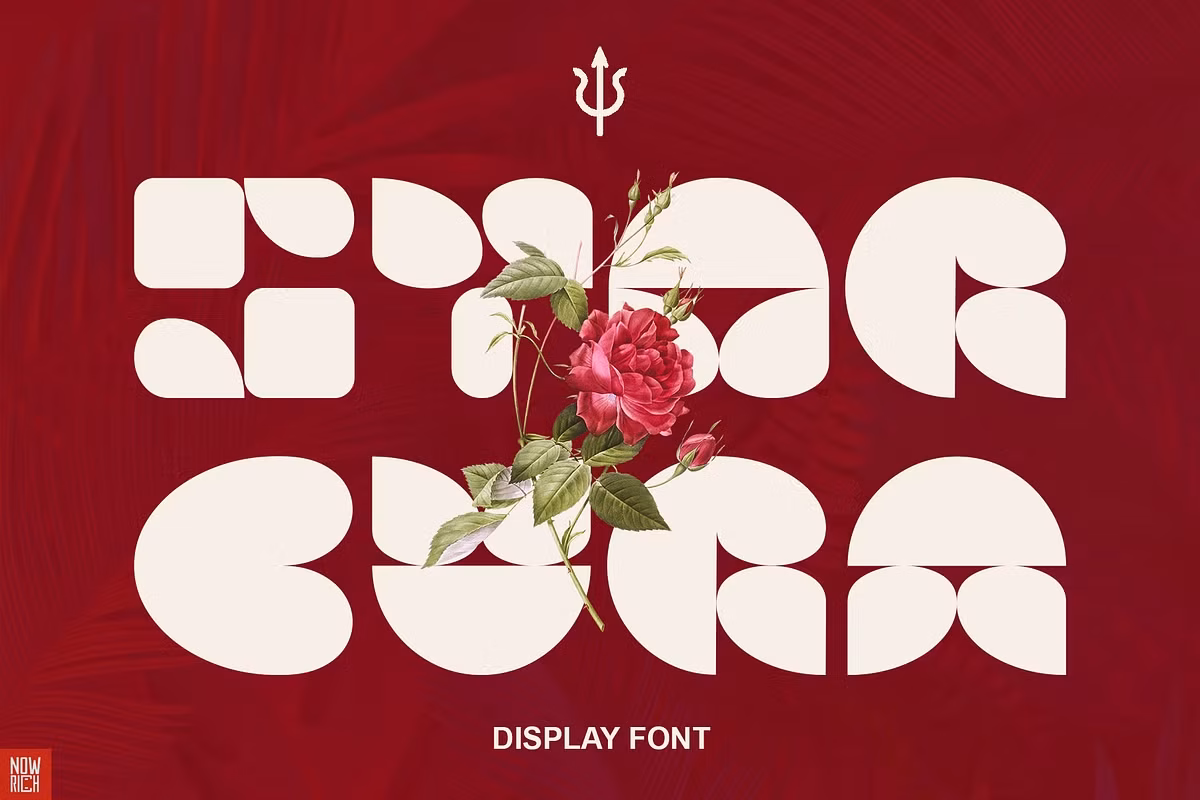
Starburn Display Font Typeface Free Download is a bold and modern display font designed with unique, stylish letterforms that make a statement. With its clean lines and creative design, Starburn is perfect for use in branding, posters, logos, and any project that demands strong, eye-catching typography.
The font’s distinct style makes it perfect for contemporary designs, allowing your work to stand out while maintaining readability. Whether you're designing for a tech brand, creative agency, or artistic project, Starburn offers versatility and visual appeal for high-impact designs.